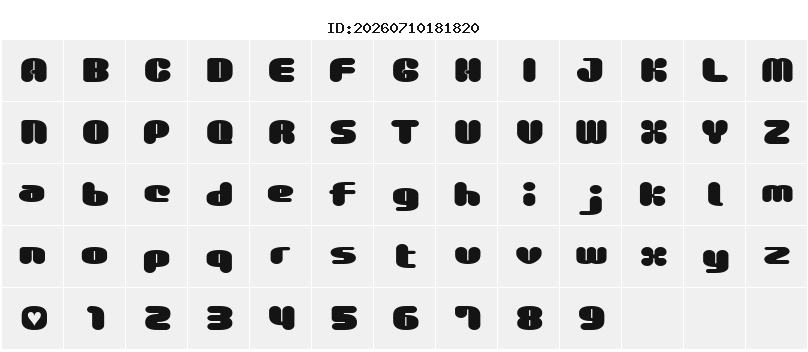
GauFontMilkChoco Preview
• Font Name: GauFontMilkChoco
• Full Font Name: GauFontMilkChoco
About GauFontMilkChoco.ttf
GauFontMilkChoco.ttf is a modern, elegant sans-serif font designed for ultimate readability and visual harmony. Perfect for branding, headlines, web design, and print materials.